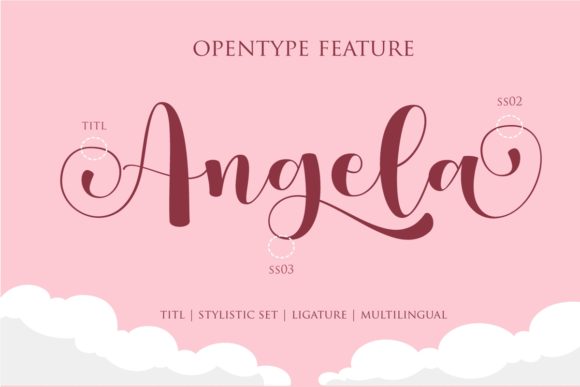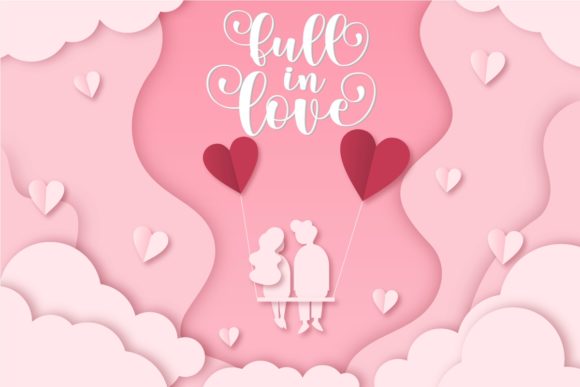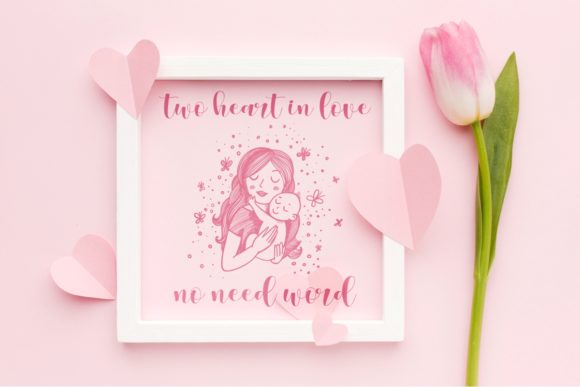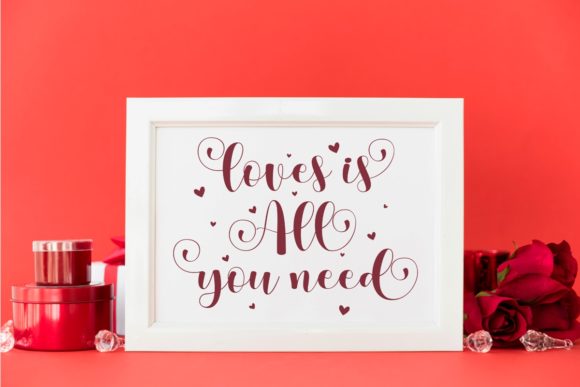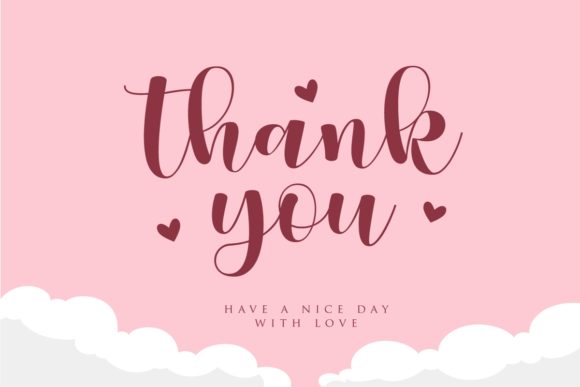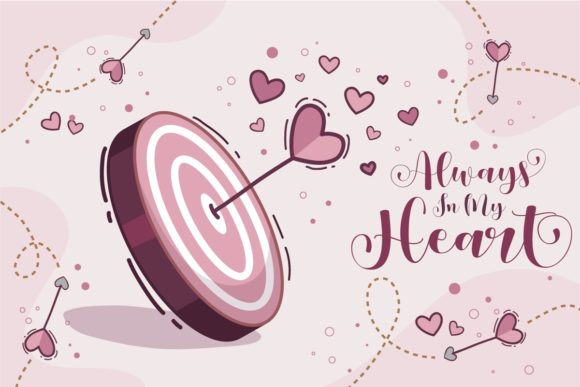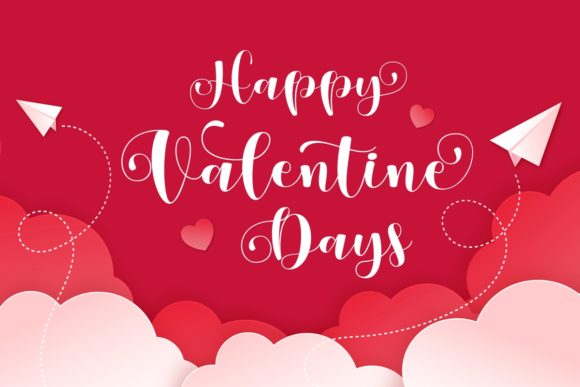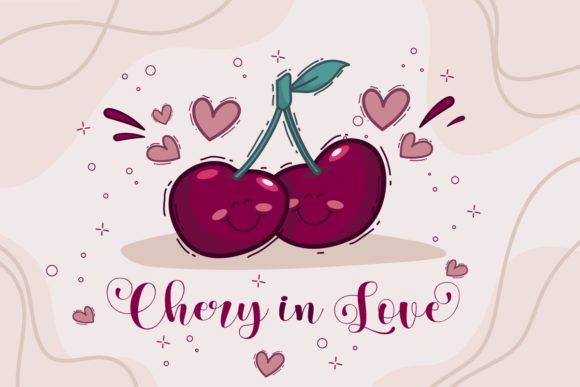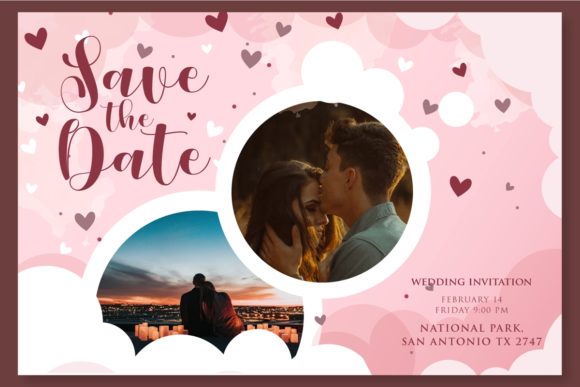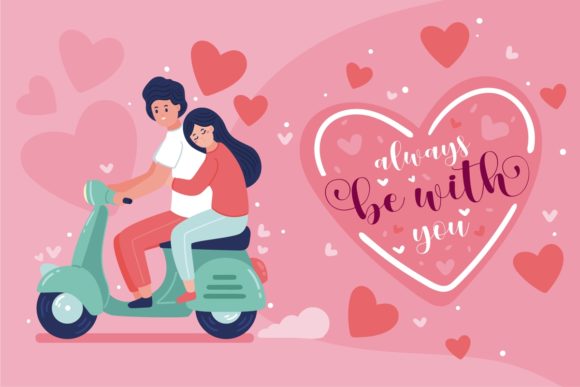
Helo Angel Font
About Helo Angel Font
Helo Angel is a stunning and romantic calligraphy typeface that exudes elegance and charm. With its flowing and graceful letterforms, this font brings a touch of luxury to any design project. The characters in Helo Angel appear as if they are dancing along the baseline, adding a whimsical and playful element to your designs.
This font is particularly well-suited for projects that require a romantic and sophisticated touch. From wedding invitations and love letters to elegant logos and branding materials, Helo Angel will elevate your designs and evoke a sense of romance and enchantment.
One of the standout features of Helo Angel is its collection of amazing glyphs and ligatures. These additional characters and stylistic variations allow you to further customize and enhance your designs. The PUA encoding ensures easy access to all these special glyphs and ligatures, enabling you to effortlessly incorporate them into your creative projects.
Whether you’re designing a heartfelt quote, a delicate logo, or a beautiful piece of stationery, Helo Angel offers a wide range of possibilities. Its romantic and sweet appearance adds a touch of magic to your designs, making them truly captivating and memorable.
The versatility of Helo Angel extends beyond its use in romantic designs. While it shines in projects related to love and beauty, it can also be adapted to various other contexts. Its elegant and refined style pairs well with a range of design aesthetics, making it suitable for a variety of applications.
In summary, Helo Angel is a romantic and sweet calligraphy typeface that brings a luxurious touch to your design projects. With its dancing baseline and elegant letterforms, it adds an element of enchantment and sophistication. The PUA encoding ensures easy access to its amazing glyphs and ligatures, allowing you to customize and enhance your designs effortlessly. Embrace the beauty of Helo Angel and let it infuse your projects with romance and elegance.